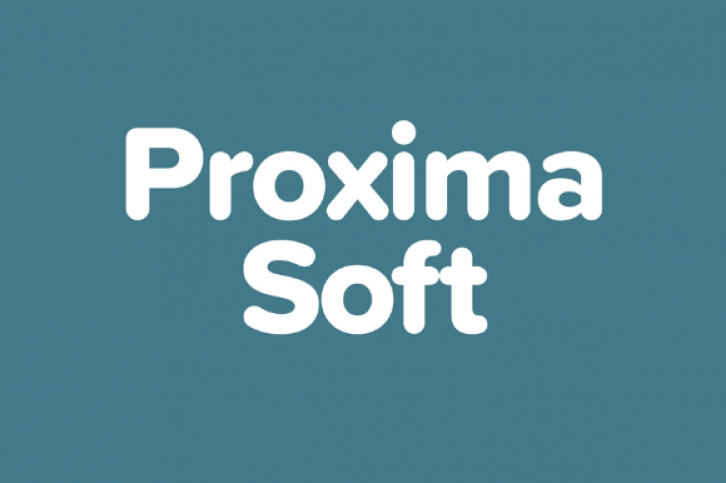
Proxima Soft (2017) is a rounded version of Proxima Nova. With the same forty-eight styles (eight weights in three widths, plus italics).
Proxima Soft fits the bill when you want something a bit warmer and more playful than its older sibling. It features the same extensive language support, including Greek and Cyrillic.
It also has several alternate characters, such as a one-story lowercase a, allowing you to customize its appearance in a variety of ways.
(Note: Proxima Soft is similar but not identical to Proxima Nova Soft, which I released in 2011 and only had six styles (Regular, Medium, and Semibold, plus Italic for each). There were enough differences (including reflow issues with documents created with Proxima Nova Soft) that I felt it necessary to release the new version as a new family, rather than as an update or expansion of the older version. I no longer offer Proxima Nova Soft at any of my distributors.)